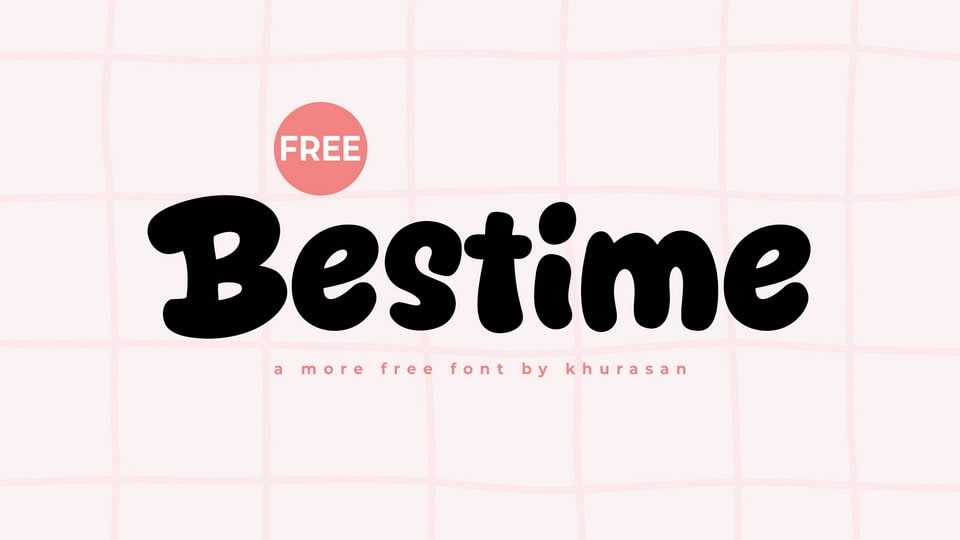
Download Bestime font, a bold and bouncy display font designed to bring joy and energy to your creative projects. With its rounded, playful letterforms and chubby proportions, Bestime radiates a friendly, cheerful vibe that’s impossible to ignore.